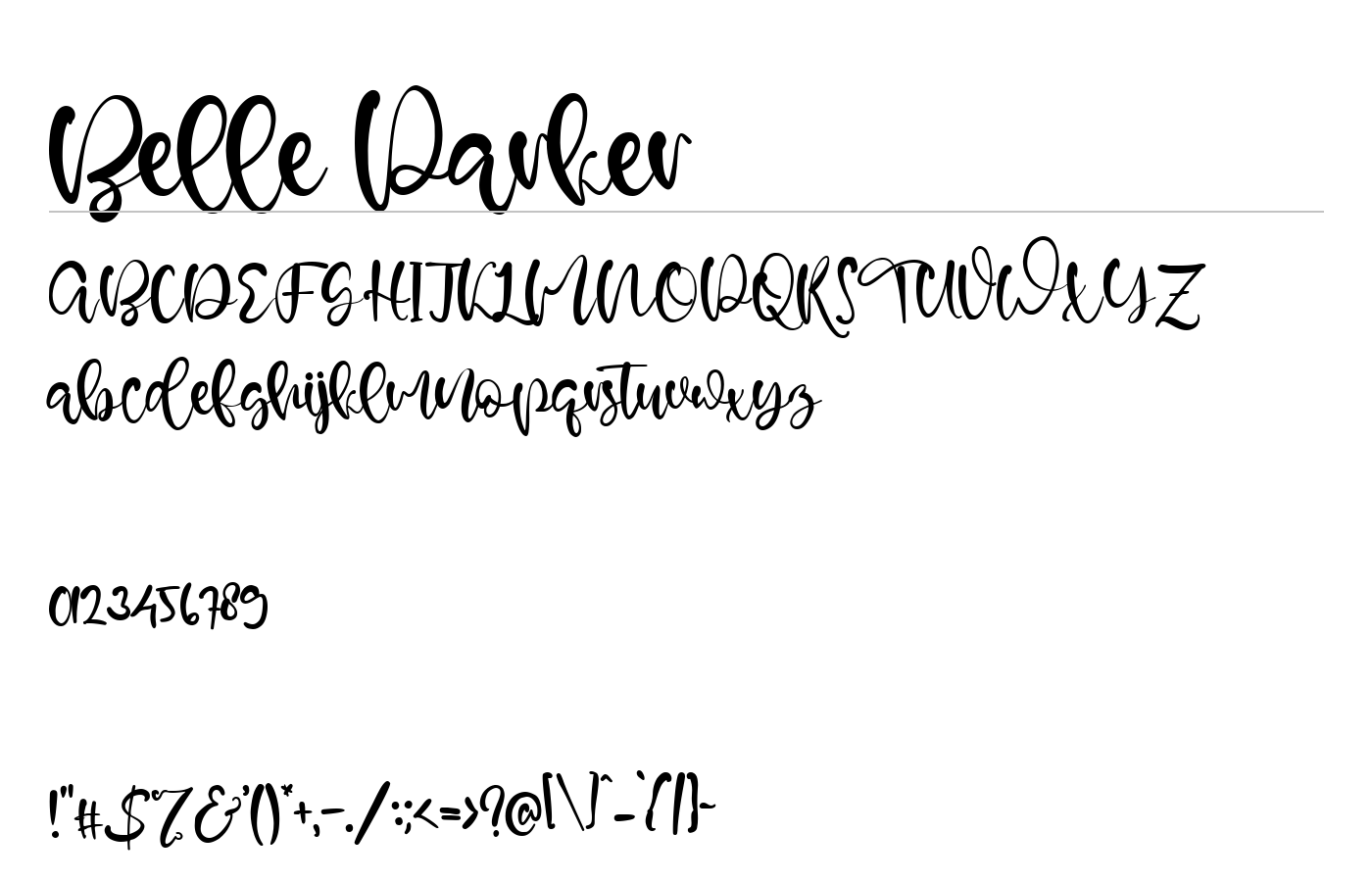
Belle Parker is a playful and elegant handwritten script font with smooth, flowing strokes and a lively character. Its bold weight and whimsical letterforms make it perfect for creative branding, invitations, and any design needing a personal, artistic touch. This font’s charming style brings warmth and personality to logos, packaging, and headlines.
Belle Parker Font
About Belle Parker Font
| Font family | Belle Parker Font |
| Designer | VZtype |